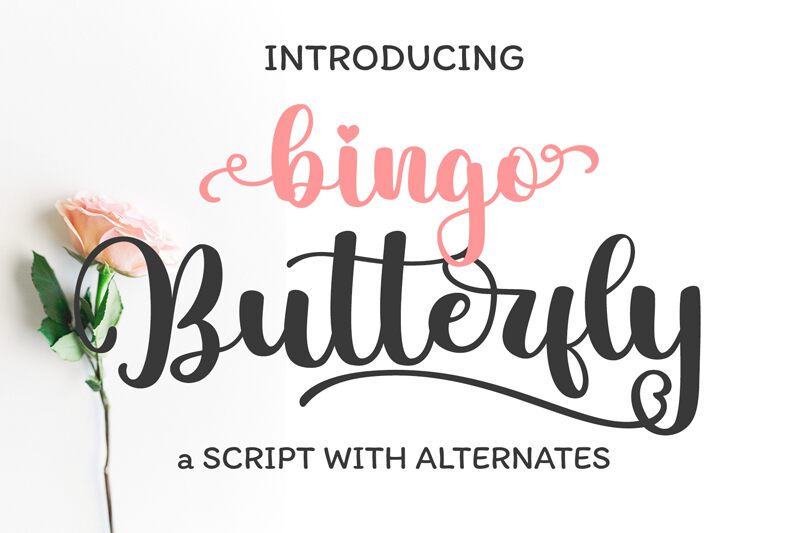
Bingo Butterfly, the exquisite calligraphy font designed by Bearytype, is bound to captivate your audience with its delicate and playful strokes. Its unique alternates offer a versatile range of possibilities for any creative project that requires a touch of elegance and charm, whether it be wedding invitations, branding materials, or social media graphics. The semi-bold font width adds just the right amount of weight to balance out the intricate flourishes and make your text pop. Bring your designs to life with Bingo Butterfly - a graceful typeface that will leave a lasting impression on anyone who sees it.